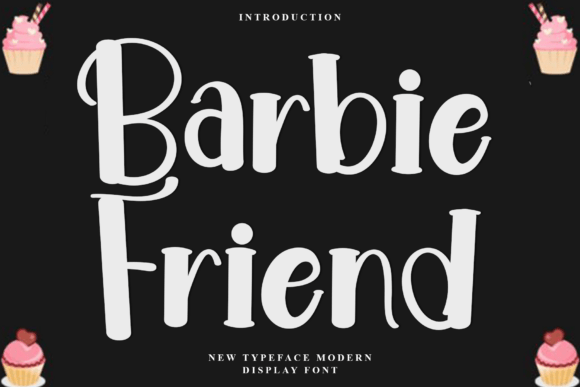
Barbie Friend: A Display Font That Builds Warmth and Connection
If you're crafting scroll-stopping social media graphics, launching a new product line, or building a cohesive brand identity across digital touchpoints, typography isn’t just decoration—it’s strategic communication. Barbie Friend is a display font designed for exactly that: turning short-form text into emotionally resonant moments. Its round, soft-edged letterforms and gentle stroke contrast evoke sincerity, approachability, and lighthearted creativity—without sacrificing clarity or visual impact.
This isn’t a font for body copy or dense paragraphs. Barbie Friend shines where attention is fleeting and first impressions are non-negotiable: YouTube thumbnails, Instagram Reels covers, Pinterest pins, email headers, and digital ad banners. Its personality lands instantly—friendly but not childish, playful but not unprofessional. That balance makes it ideal for brands aiming to humanize their voice while maintaining polish, especially in lifestyle, wellness, education, small business, and creator-led spaces.
On mobile screens and fast-scrolling feeds, readability hinges on shape recognition—not just letter spacing. Barbie Friend’s open counters, generous x-height, and consistent rhythm ensure legibility even at small sizes. When used for headlines or callouts under 48px, it remains distinct without requiring zoom or pause. For thumbnails and reels covers—where viewers decide in under 0.5 seconds—the font’s warmth acts as visual shorthand: “This is for you.” It signals inclusivity and ease before a single word is read.
Think about a seasonal promotion: a pastel-toned Instagram carousel announcing a “Spring Refresh Sale.” Using Barbie Friend for the headline “Your Spring Refresh Starts Now” creates instant emotional alignment—soft, inviting, optimistic. Pair it with a clean, neutral sans serif (like Inter or Montserrat) for pricing, dates, and fine print, and you’ve built clear visual hierarchy: emotion first, information second. The same logic applies to webinar banners (“Join Our Creative Confidence Workshop”), inspirational quote graphics (“Small steps build big joy”), or branded content series headers—each time reinforcing tone through type.
For personal branding or solopreneur campaigns, Barbie Friend adds authenticity without overdesigning. A YouTuber launching a new video series can use it for the title treatment on their channel banner and thumbnail, then switch to a minimalist sans serif for descriptions and CTAs. That contrast builds consistency *and* clarity—viewers recognize the series by its friendly headline style, while still absorbing key details effortlessly. Similarly, an online shop promoting handmade goods might apply Barbie Friend to “Hand-Poured • Small Batch • Made With Love” on product launch banners, letting the font do subtle emotional labor that supports messaging rather than competes with it.
It works exceptionally well for logo marks, monograms, and decorative accents—especially when paired with intentional negative space and restrained color palettes. Avoid overcrowding; Barbie Friend thrives when given breathing room. Use it for short, high-impact phrases: “You’re Invited,” “Just Landed,” “New Chapter,” or “Let’s Begin.” Its rounded terminals and soft joins soften sharp edges in layout, making even bold campaign visuals feel grounded and warm.
Font pairing is where Barbie Friend reveals its versatility. With a geometric sans serif, it balances friendliness and function—ideal for ads, landing pages, or email headers. With a refined serif (think Playfair Display or Cormorant Garamond), it introduces gentle contrast for editorial-style blog headers or newsletter features, adding character without compromising sophistication. Avoid pairing it with other highly decorative fonts—its strength lies in being the expressive anchor, not one of many competing elements.
In a landscape saturated with ultra-thin serifs and aggressive tech-inspired typefaces, Barbie Friend offers something increasingly rare: visual empathy. It doesn’t shout—it leans in. That makes it powerful for campaigns centered on community, care, creativity, or calm. Whether you’re designing a limited-time offer, a brand refresh, or a recurring content series, this display font helps align your typography with your intent—not just what you say, but how people *feel* when they see it.
Use Barbie Friend where warmth matters most: in first-touch assets, emotional hooks, and brand signatures. Let it carry the tone so your words land deeper—and your audience stays longer.